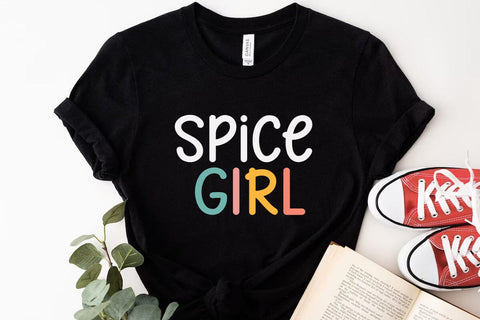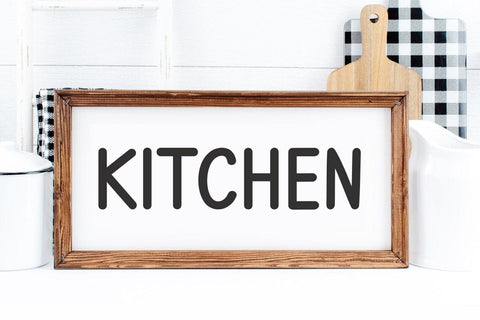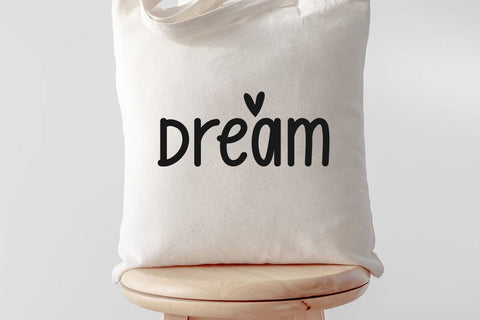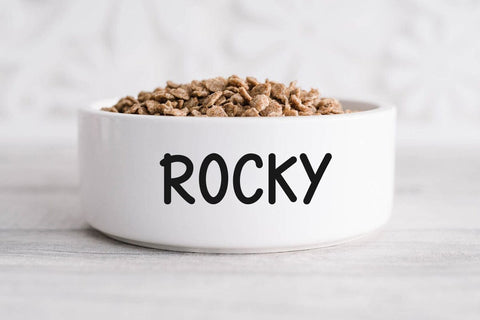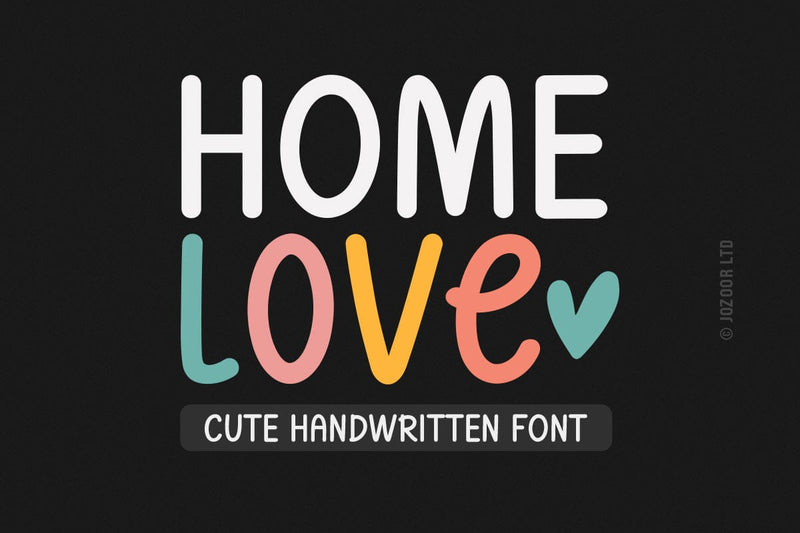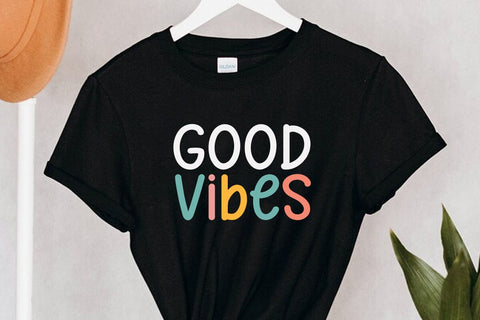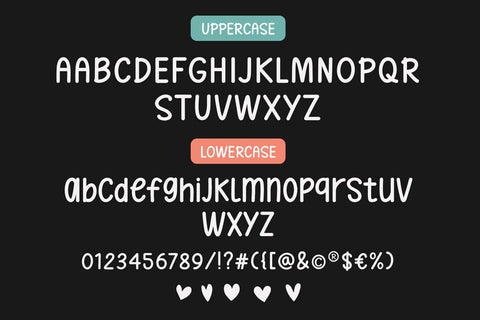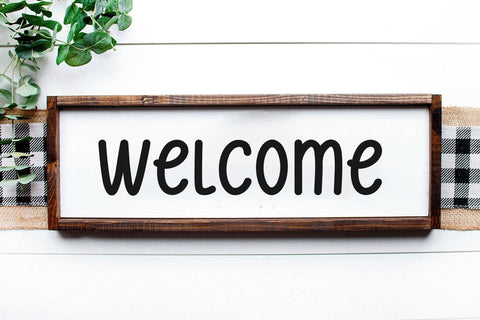
Home Love - Cute Handwriting Font
Home Love is a cute handwritten font. It has beautiful and well-balanced characters and as a result, it matches a wide pool of designs. It is the best choice for creating shirts, logos, goodnotes, planners, stickers, procreate designs, and quotes.